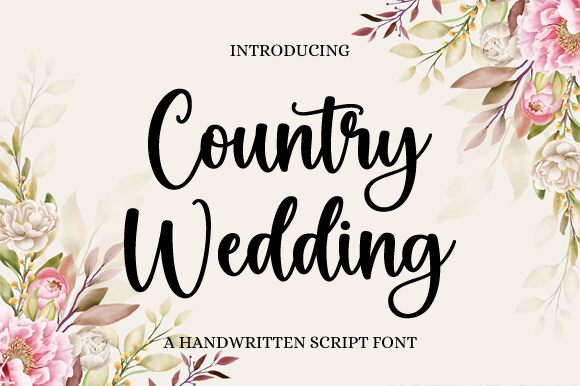
Country Wedding, designed by Graphix Line Studio, exudes a charming handwritten aesthetic that captures the essence of an idyllic rural romance. With its semi-light weight, this font dances between casual elegance and playful warmth, making it perfect for invitations, branding, and personal correspondence that requires a touch of personal flair.
The flowing lines and organic structure of Country Wedding give it a natural appeal that is both inviting and aesthetically pleasing. Its style effortlessly conveys a sense of intimacy and authenticity, reminiscent of handwritten notes passed between friends or the pages of a well-loved journal.
Its suitability for diverse creative projects cannot be overstated; whether it's adorning the pages of a boutique's lookbook or lending character to event signage, Country Wedding brings a bespoke quality to any design. This font is ideal for those seeking to infuse their project with personality while maintaining readability and grace.